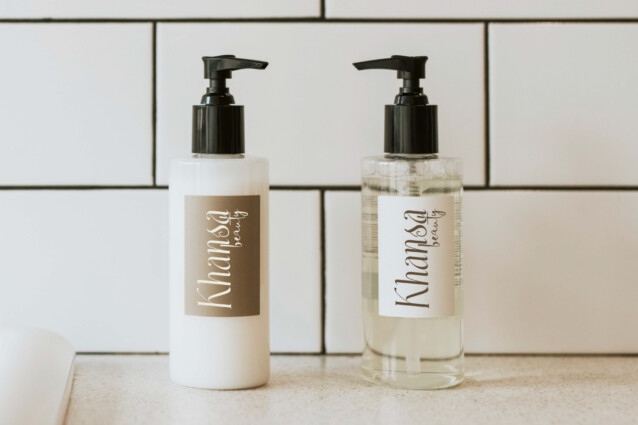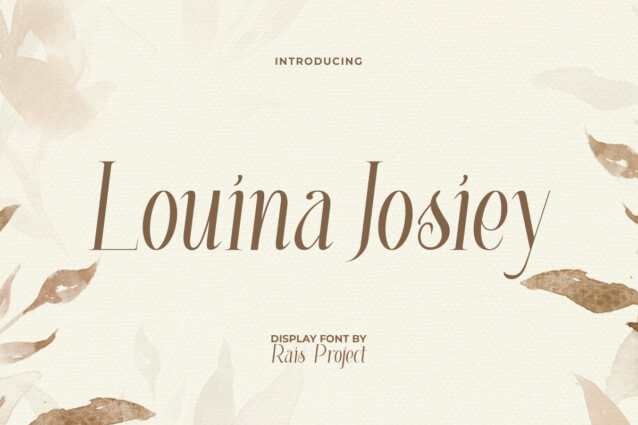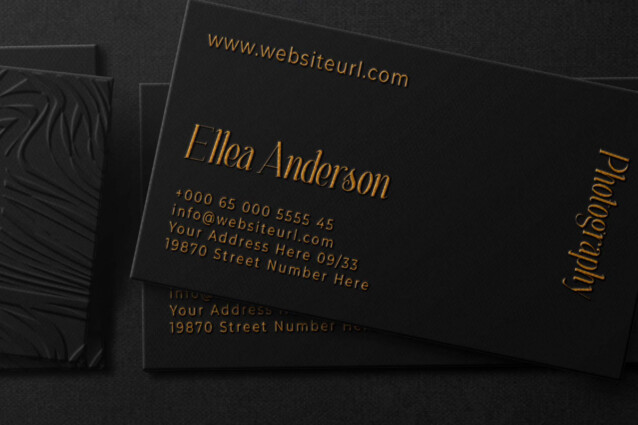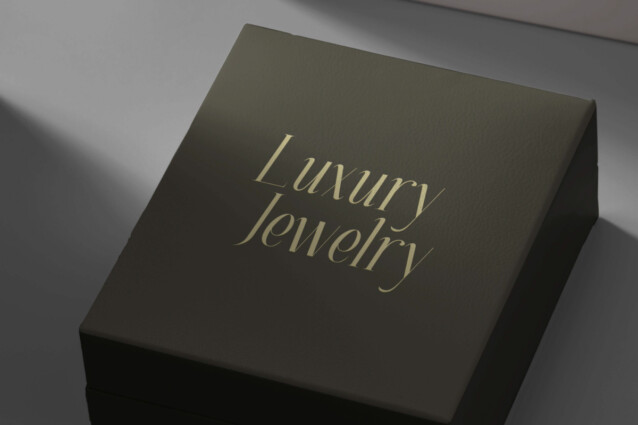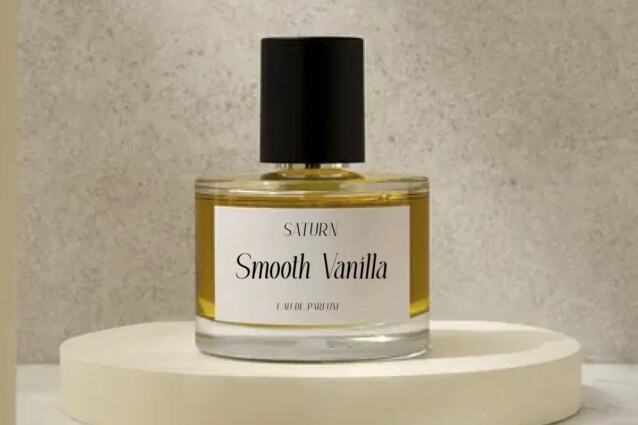
Louina Josiey Font
Louina Josiey Font is an elegant serif display font. This font carries a minimalist and simple concept to exude its luxury. It will work well in many designs, such as brand image, business card, cover, custom design, gift box, greeting card, invitation, label, menu, product packaging, quote, signage, web, and more!